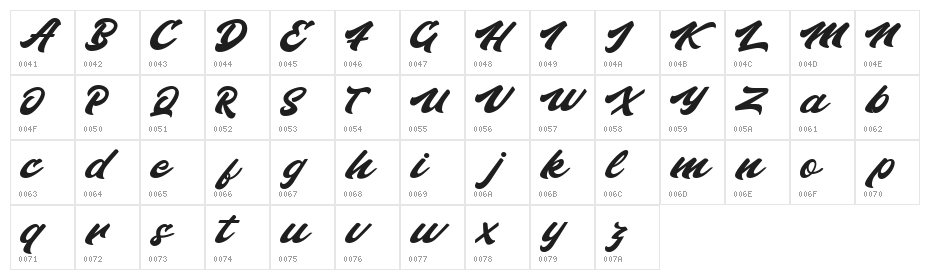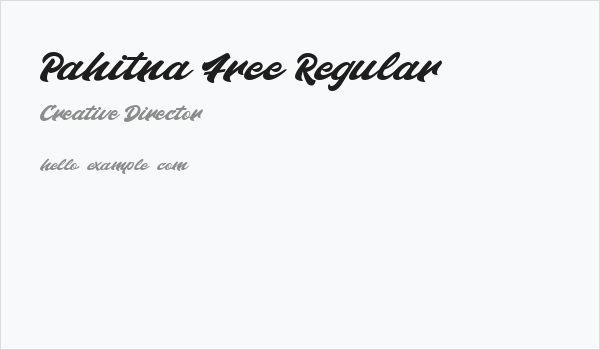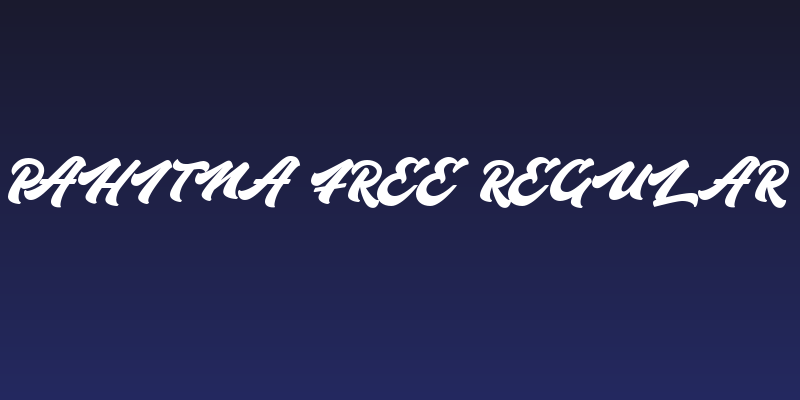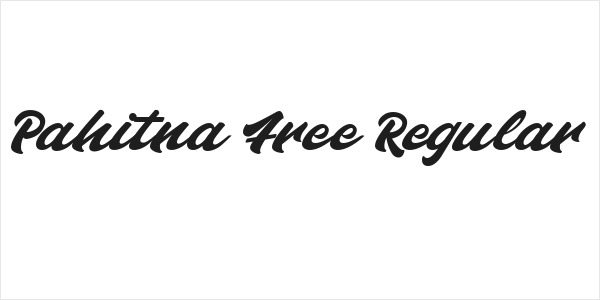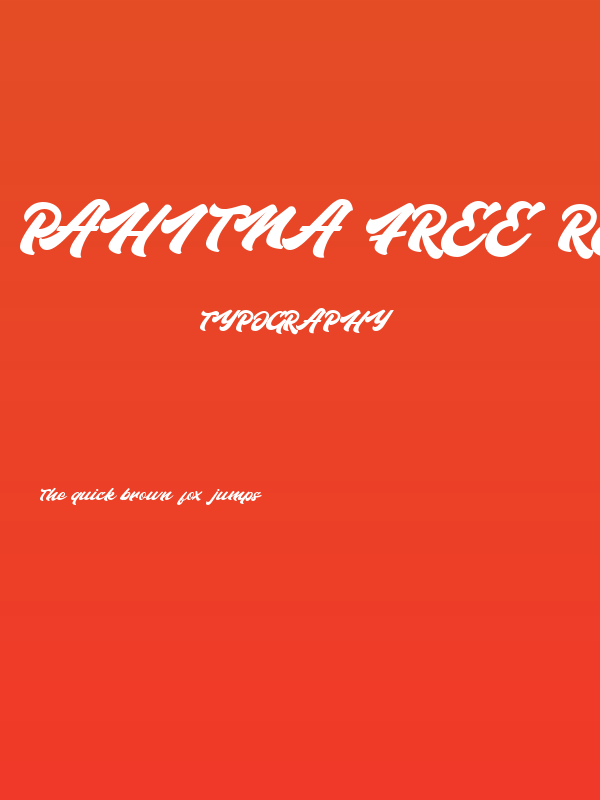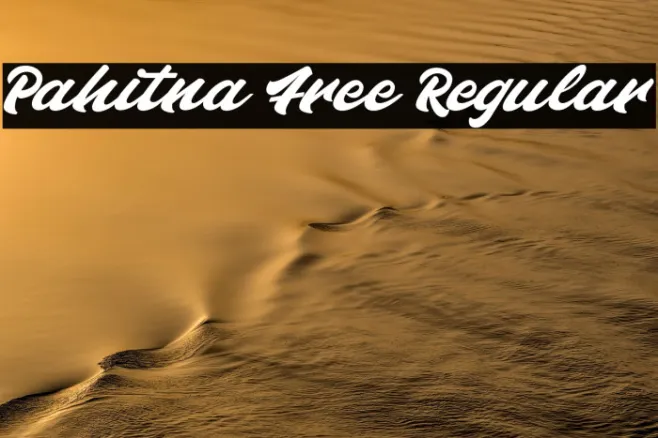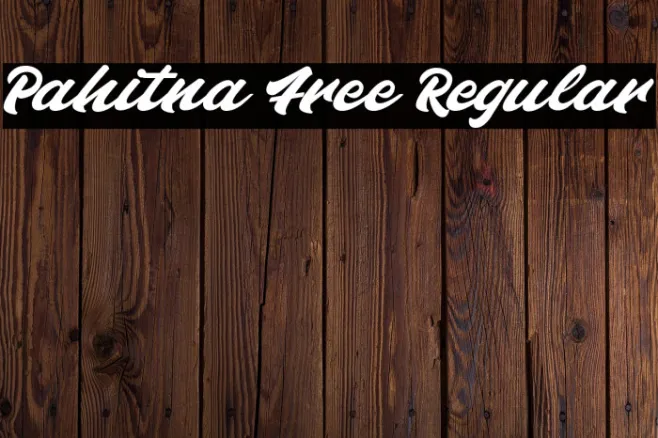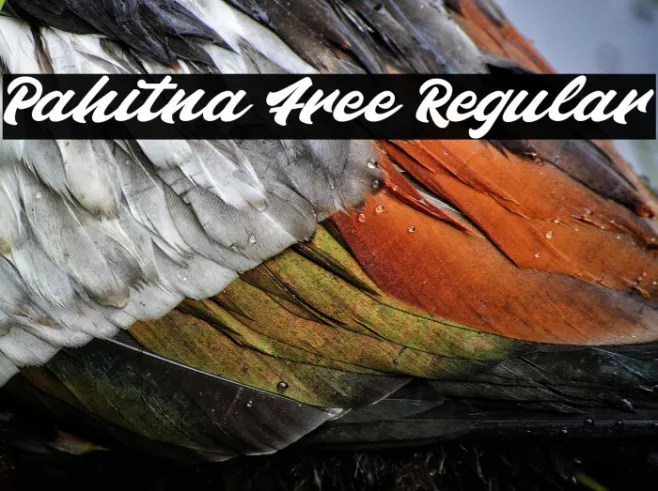
Pahitna Free Regular Font
Pahitna Free Regular Description
This font features a bold and dynamic script style, characterized by its flowing, cursive letters that convey a sense of elegance and movement. The strokes are thick and consistent, creating a strong visual impact. The uppercase and lowercase letters are designed with smooth curves and a slight slant, enhancing the font's fluidity. The overall appearance is both stylish and expressive, making it suitable for creative and artistic projects. The font maintains a consistent weight throughout, ensuring readability while adding a touch of sophistication.
| Proposed Projects | Ideal for branding, invitations, logos, and creative design projects that require a touch of elegance and expressiveness. |